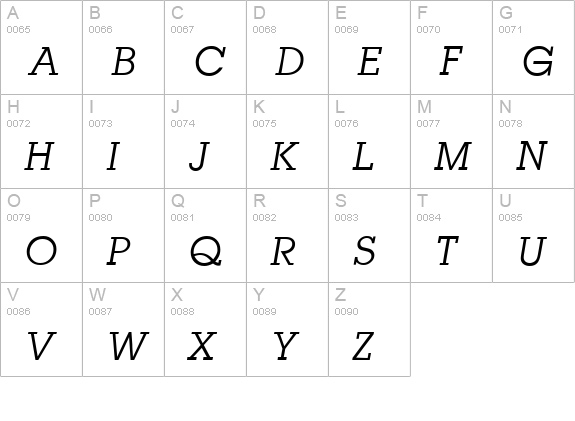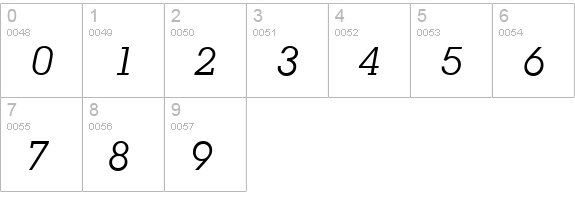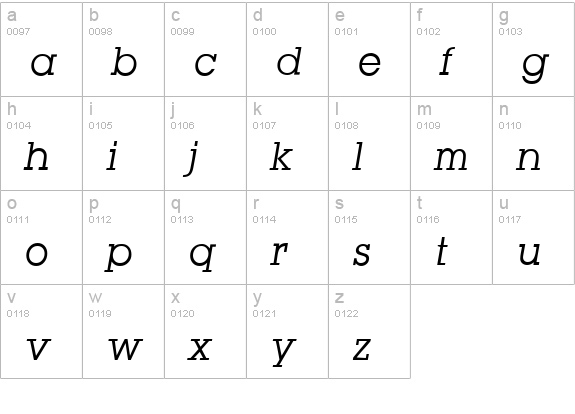
L850-Slab-Italic is a distinctive, italic variant in the L850 typeface family \xE2\x80\x94 well suited to design and typography projects.
The L850 Slab Italic font is a sleek and modern typeface that exudes sophistication and elegance. Its italicized design adds a touch of flair and style to any project, making it perfect for use in branding, advertising, and editorial design. The sharp serifs and clean lines of this font give it a professional and polished look that will elevate any design. The best part? This font is available for free download at FontsMarket.com, making it accessible to designers and creatives of all levels. Whether you're working on a personal project or a client's brief, the L850 Slab Italic font is a versatile and stylish choice that will help your work stand out. Don't miss out on this opportunity to add a touch of sophistication to your designs with the L850 Slab Italic font, available for free at FontsMarket.com. Download it today and see the difference it can make in your projects!